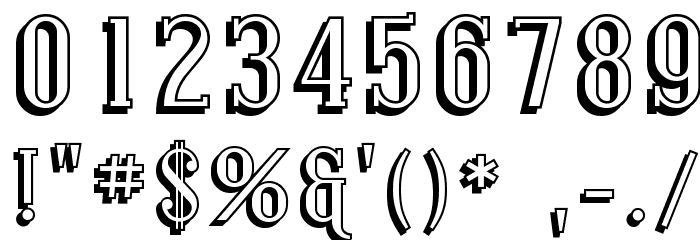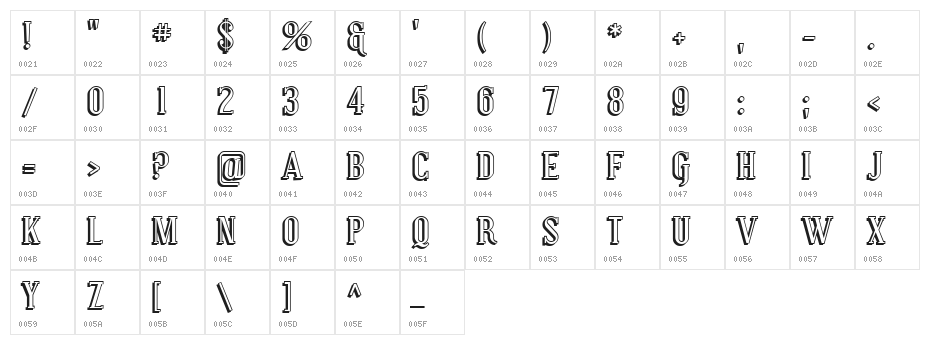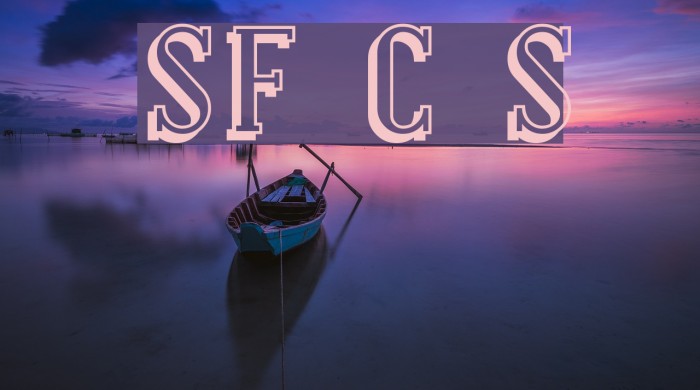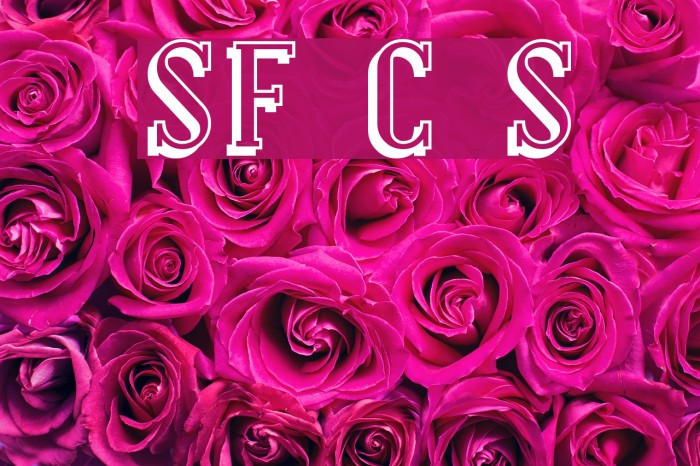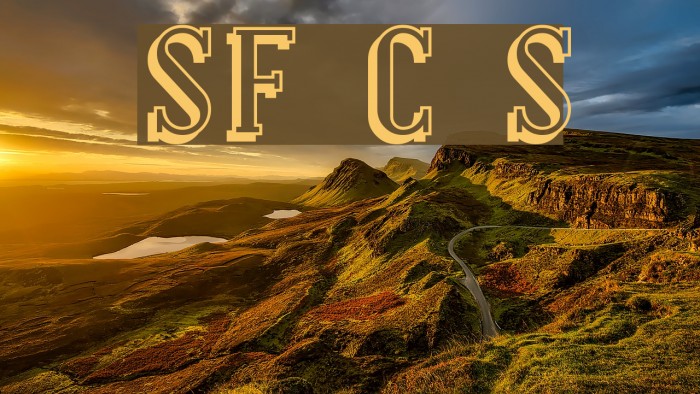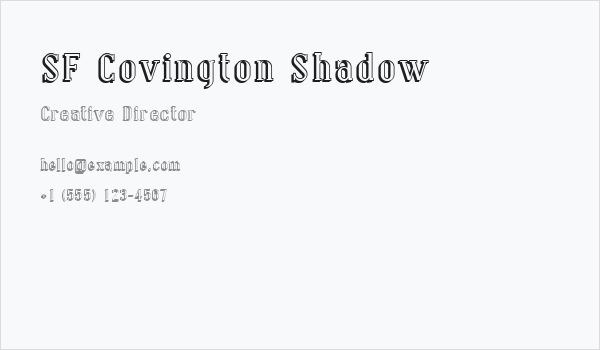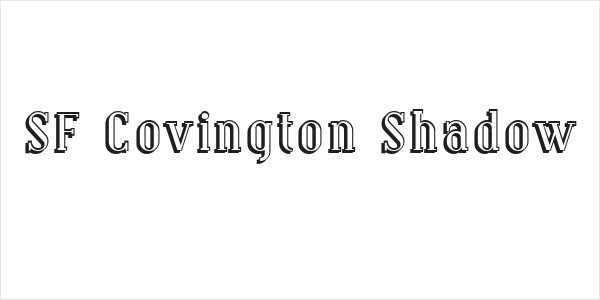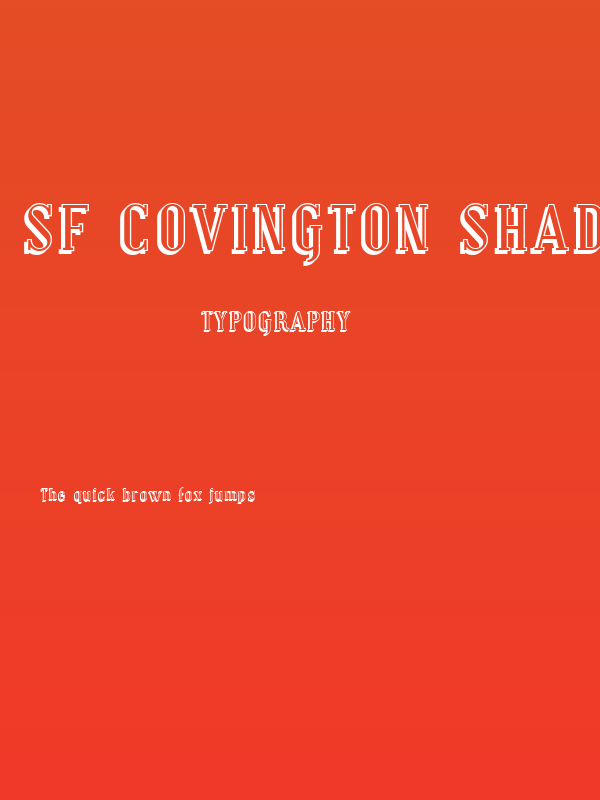
SF Covington Shadow Font
SF Covington Shadow Description
This font features a bold and striking design with a shadow effect that adds depth and dimension to each character. The uppercase and lowercase letters are crafted with a strong serif style, giving it a classic yet modern appearance. The numbers and special characters maintain the same boldness and shadow, ensuring consistency throughout. The font's design is ideal for making a statement, with its high contrast and clear legibility. The shadow effect enhances its decorative appeal, making it suitable for various creative applications.
| Proposed Projects | Ideal for headlines, posters, branding, and any project requiring a bold, eye-catching typeface. |